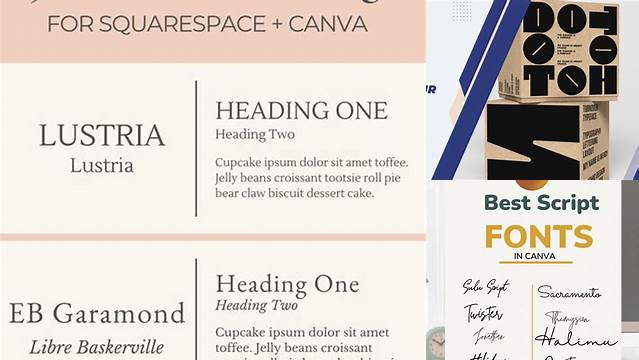
Script Fonts For Packaging: A Complete Guide To Stunning Designs
Script fonts, with their elegant curves and flowing lines, add a touch of sophistication and personality to packaging designs. Choosing the right script font can significantly impact how consumers perceive a product, influencing their purchasing decisions. In this guide, we'll dive deep into the world of script fonts for packaging, exploring their characteristics, best practices for usage, and examples of stunning applications. Whether you're a seasoned designer or just starting out, this comprehensive guide will equip you with the knowledge to select and implement the perfect script font for your packaging needs.
Choosing the Right Script Font for Packaging
Hey guys, let's talk about picking the perfect script font for your packaging! It's a super important decision because it really sets the tone for your product. Script fonts are like the fancy, handwritten cousins of the font world, adding a touch of elegance, personality, and often, a sense of luxury. They can make your product stand out on the shelf, but you gotta choose wisely! Think about the vibe you're going for. Is it a playful, whimsical product? Then you might lean towards a more casual, bouncy script. Or, are you selling something high-end and sophisticated? In that case, a classic, elegant script would be your best bet. The key is to match the font's personality with the product's brand identity. Consider the target audience too. Are you aiming for a younger demographic? A more modern, trendy script might work. For a more mature audience, a timeless, refined script could be better. Don't forget readability. Script fonts can be tricky. Some are super ornate and hard to decipher. Make sure your chosen font is easy to read, especially for important information like product names and ingredients. Also, think about the size. Smaller text needs a cleaner, more legible script, while larger text can handle a bit more flair. Finally, make sure the script font plays well with other fonts you're using. You want a good balance – not a font clash! Combining a script font with a clean, sans-serif font often works beautifully. Experiment, play around, and don't be afraid to try different options until you find the perfect match! Remember, the right script font can elevate your packaging from 'meh' to 'wow!'
The Importance of Typography in Packaging Design
Okay, so typography is a big deal, right? It's more than just choosing pretty letters; it's about crafting a visual message that grabs attention and speaks to your customers. Typography in packaging design is like the silent salesperson, conveying your brand's personality, values, and the overall feel of your product. It sets the first impression, influencing how consumers perceive your brand even before they know what's inside the box. Think of your packaging as a canvas, and typography is the brushstroke that paints the picture. It's about selecting fonts that resonate with your target audience. A playful, handwritten font can communicate a sense of fun and approachability, while a clean, modern typeface projects sophistication and trustworthiness. The choice of font also impacts readability. Clear, legible fonts are crucial for essential information like product names, ingredients, and instructions. Choosing the wrong font can lead to a frustrating experience for the customer, making them less likely to purchase your product. Size, spacing, and color play key roles. The size of the text determines how easily the information can be read from a distance, while spacing affects the overall visual appeal. Color further enhances readability and aligns with the brand's visual identity. Typography also shapes brand recognition. Consistent use of specific fonts across all packaging elements helps create a unified brand identity, making your product easily recognizable on the shelf. It's about conveying the right message at the right time, ensuring your packaging not only looks great but also effectively communicates your brand's story and value proposition.
Different Types of Script Fonts and Their Characteristics
Let's dive into the world of script fonts, shall we? There's a whole range of styles, each with its own unique vibe. We've got formal scripts, often mimicking elegant calligraphy, which are perfect for luxury brands or anything that needs a touch of sophistication. Then there are casual scripts, that look like they were written with a pen or a brush, ideal for a more relaxed, friendly feel. Calligraphic scripts are inspired by traditional calligraphy and usually feature flowing strokes and varying line thicknesses, adding a sense of artistry and elegance. They're often seen in high-end products. Brush scripts mimic the look of a brush stroke, with thick and thin lines and a more dynamic feel. They're great for brands that want to appear artistic or edgy. Modern scripts are a bit more contemporary, often with clean lines and less ornate details. They can be versatile, fitting for a range of products from fashion to tech. Handwritten scripts attempt to replicate the natural look of handwriting. They add a personal touch and work well for brands that emphasize authenticity and a personal connection. Consider the mood you want to convey. Formal scripts bring a sense of luxury, while casual scripts are friendly and approachable. Choose the script font that aligns with your brand's personality and the message you want to send. Look at the details, such as the connections between letters, the overall weight of the font, and the flow. These small details will influence how the font appears in your packaging. Also, consider the intended use. Some scripts are better suited for headlines and logos, while others work well for body text. Understanding the characteristics of different script fonts allows you to choose the best one for your specific packaging needs, effectively conveying your brand's message and capturing consumers' attention.
Best Practices for Using Script Fonts in Packaging
Alright, here are some awesome tips to make your script fonts shine in your packaging. First off, legibility is king! Make sure your script font is easy to read, especially for important details like the product name and ingredients. Sometimes, beauty can be a beast when it comes to script fonts, so avoid overly complex ones that are hard to decipher. Size matters, too! Ensure the font is large enough to be easily read from a distance. Consider the packaging size – smaller packages may need a simpler, bolder script. Choose your font based on the product's brand identity. Does your brand evoke luxury? Choose an elegant script. Is it fun and playful? Opt for a more casual one. Pair it wisely. Script fonts usually play best with clean, sans-serif fonts. This contrast creates visual interest without overwhelming the design. Think about hierarchy. Use the script font for headlines or the product name to make it stand out, and a simpler font for body text. Color plays a big role. Choose colors that complement the font and the overall design. Dark script fonts on a light background often work well for readability. Be consistent! Use the same font family across all packaging elements to create a cohesive look. Remember, less is often more. Don't overload your design with script fonts. Using them sparingly can make them more effective. Test your design before printing. Print out a prototype and see how the font looks in real life. Always consider the context of use, ensuring the font choice supports the product's image and meets the target audience's expectations. Lastly, follow these practices to create packaging that not only looks beautiful but also effectively communicates your brand's message and leaves a lasting impression.
Pairing Script Fonts with Other Font Styles for a Balanced Design
Guys, let's chat about how to make your script fonts play nicely with other fonts. Think of it as creating a harmonious visual symphony! One of the best combos is a script font paired with a clean sans-serif font. This creates a nice contrast – the elegance of the script against the simplicity of the sans-serif. Sans-serif fonts are those clean, modern fonts, like Arial or Helvetica. They're perfect for body text, because they're easy to read. When you're using a script font, you'll want to think about the hierarchy of your text. Usually, you can use the script font for headlines or the product name to make it really pop, and then use the sans-serif for the rest of the information. Think about the weights of the fonts. If your script is bold and eye-catching, balance it with a lighter sans-serif. If your script font is more delicate, you can use a slightly heavier sans-serif. This balance keeps your design from looking too heavy or too light. Serif fonts are another option, they have those little